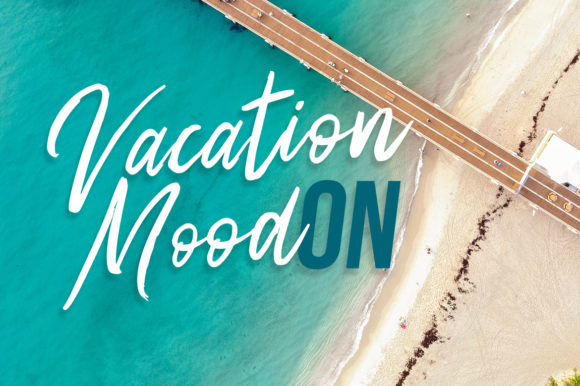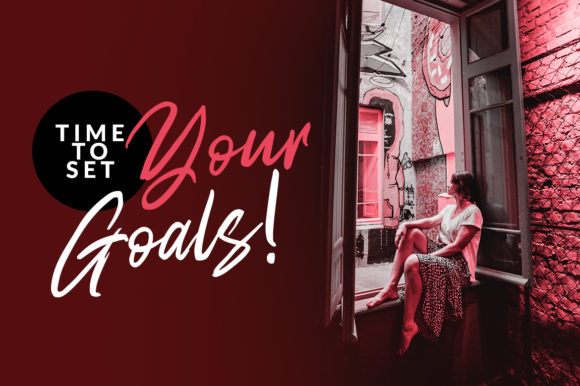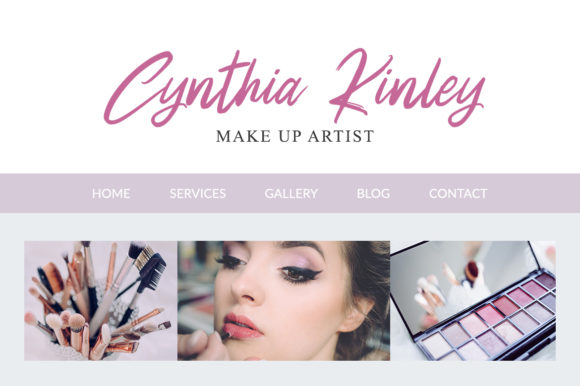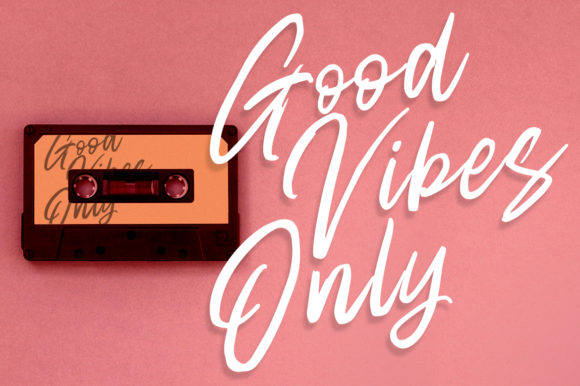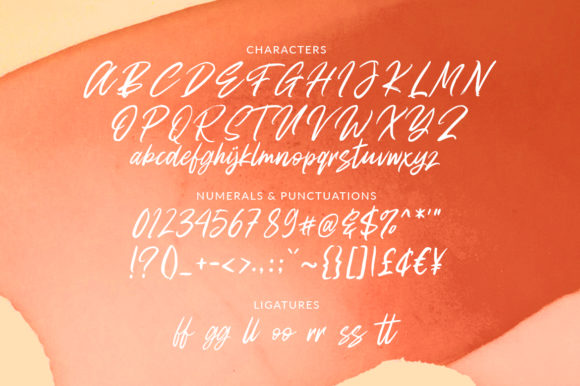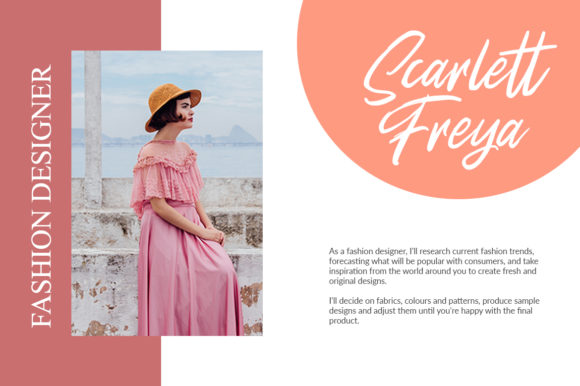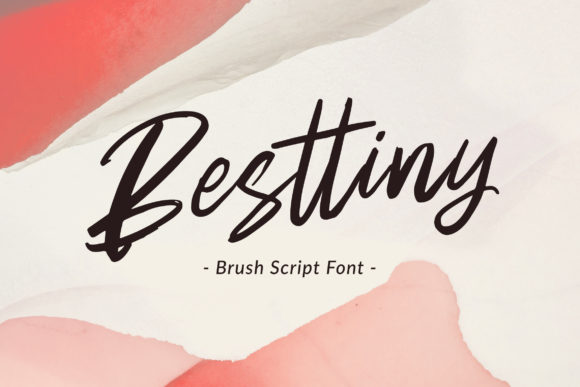
Unleash Your Creativity with Besttiny Font: The Ultimate Design Game-Changer
Are you tired of using the same old fonts in your design projects? Do you want to add a touch of personality and whimsy to your creations? Look no further than Besttiny Font, a unique and charming script that will turn any design project into a true standout!
What is Besttiny Font?
Besttiny Font is a one-of-a-kind script font that is sure to capture the hearts of designers and crafters alike. With its delicate and intricate strokes, this font is perfect for adding a touch of elegance and sophistication to any design project. Whether you’re working on a logo, a poster, or a digital graphic, Besttiny Font is sure to make your design pop!
What Makes Besttiny Font So Special?
So, what sets Besttiny Font apart from other fonts on the market? Here are just a few things that make it truly unique:
- Unique and Charming Design: Besttiny Font features a distinctive and charming design that is sure to turn heads. Its intricate strokes and delicate lines make it perfect for adding a touch of personality to any design project.
- Highly Versatile: Whether you’re working on a digital graphic, a print project, or a craft project, Besttiny Font is highly versatile and can be used in a variety of different contexts.
- Easy to Read: Despite its intricate design, Besttiny Font is surprisingly easy to read, making it perfect for use in body text as well as headlines and titles.
- Perfect for Crafting and DIY Projects: Besttiny Font is a great choice for crafters and DIY enthusiasts who want to add a personal touch to their projects. It’s perfect for use in scrapbooking, journaling, and other paper crafting projects.
How to Use Besttiny Font in Your Design Projects
Using Besttiny Font in your design projects is easy! Here are a few tips to get you started:
- Pair it with a Bold Font: For maximum impact, try pairing Besttiny Font with a bold font to create a striking contrast.
- Use it in Headlines and Titles: Besttiny Font is perfect for use in headlines and titles, where its unique design can really shine.
- Add it to Your Digital Graphics: Whether you’re creating social media graphics, blog posts, or email newsletters, Besttiny Font is a great choice for adding a touch of personality to your digital graphics.
- Use it in Your Crafting Projects: Besttiny Font is a great choice for crafters and DIY enthusiasts who want to add a personal touch to their projects. Try using it in scrapbooking, journaling, and other paper crafting projects.
Why Designers and Crafters Love Besttiny Font
So, why do designers and crafters love Besttiny Font? Here are just a few reasons:
- It’s Unique and Eye-Catching: Besttiny Font is a true standout in the world of fonts, and is sure to grab attention.
- It’s Highly Versatile: Whether you’re working on a digital graphic or a craft project, Besttiny Font is highly versatile and can be used in a variety of different contexts.
- It’s Easy to Use: Despite its intricate design, Besttiny Font is surprisingly easy to use, even for those who are new to design.
| Font Name | Besttiny Font |
| Author | Weape Design |
In conclusion, Besttiny Font is a unique and charming script that is sure to turn any design project into a true standout. With its delicate and intricate strokes, this font is perfect for adding a touch of elegance and sophistication to any design project. Whether you’re a designer, crafter, or DIY enthusiast, Besttiny Font is a great choice for anyone looking to add a personal touch to their creations. So why wait? Download Besttiny Font today and start unleashing your creativity!